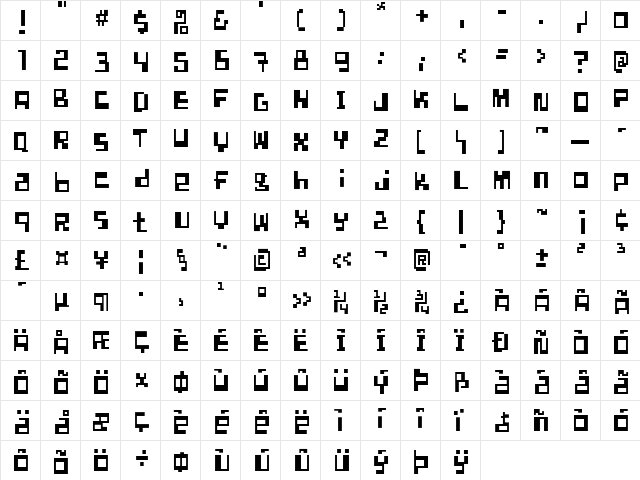
Quadrada Medium
Design Context for Quadrada Typeface
Quadrada offers clean, dependable letterforms without strong stylistic allegiance, making it a practical choice for designers who need flexibility.